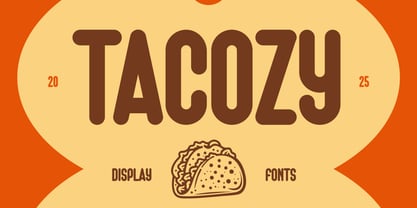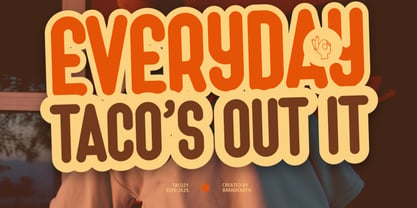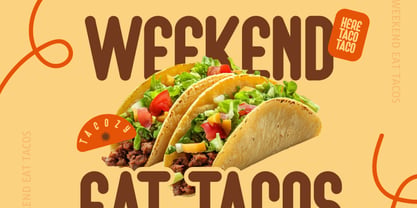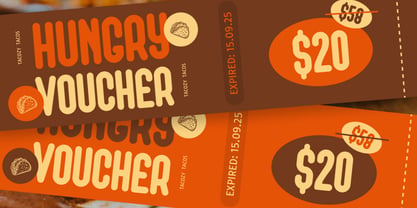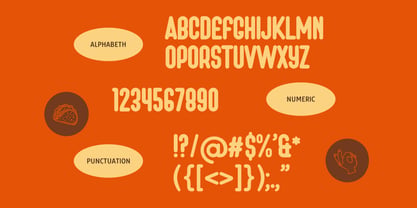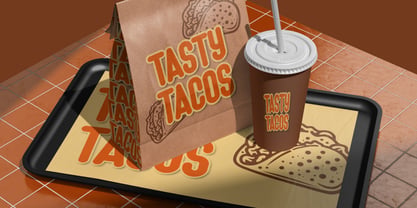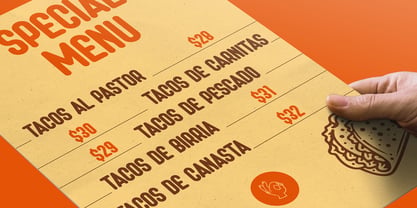
Tacozy
Tacozy Creative Display Font is a bold rounded typeface that combines smooth curves with a playful character. Its food-inspired style and retro charm make it stand out in both modern and nostalgic design themes. The font includes uppercase A–Z, numerals, and punctuation, all crafted with balanced proportions for strong readability. With its heavy yet friendly appearance, Tacozy brings personality and creativity to any visual project in digital or print use. Relevance and Use Cases is perfect for food packaging, restaurant branding, cafe menu design, street food festival posters, candy and sweets labels, bakery signage, playful social media graphics, handmade product packaging, YouTube thumbnails, children’s book covers, lifestyle blog headers, cheerful printable designs, quirky advertising campaigns, and creative retro-inspired layouts.